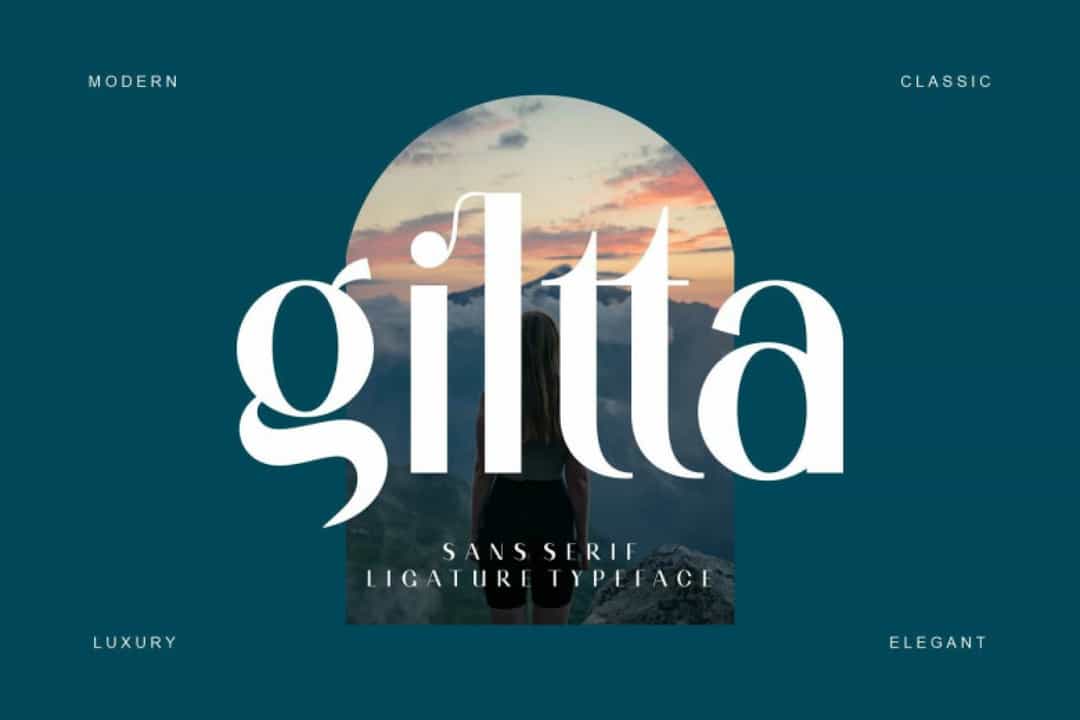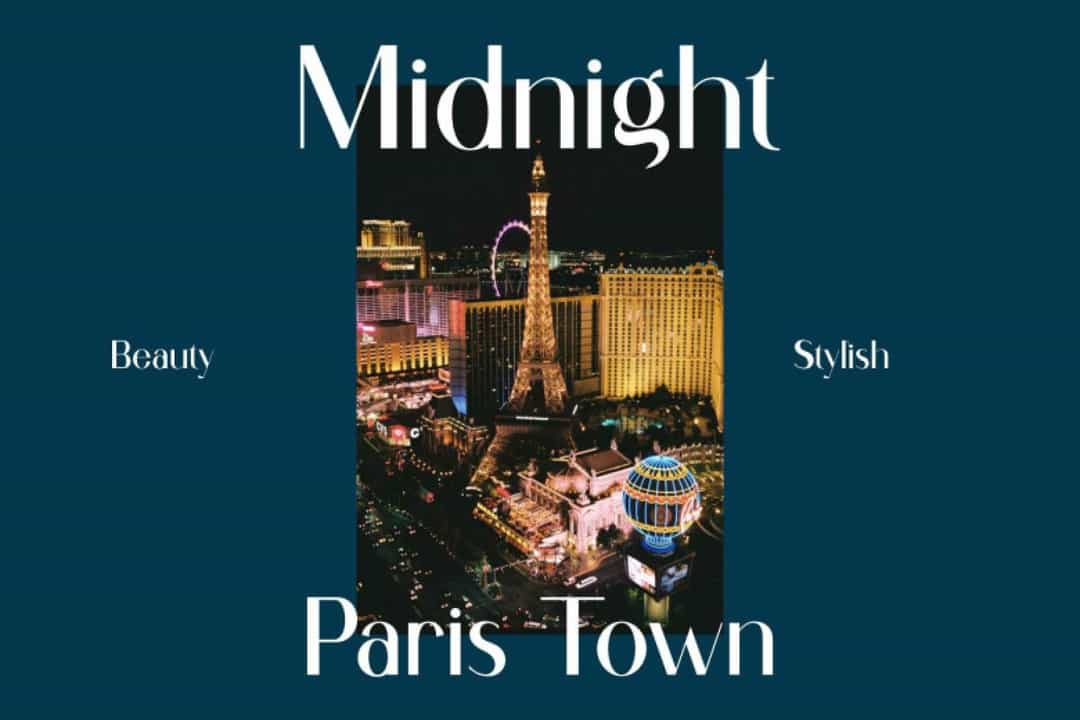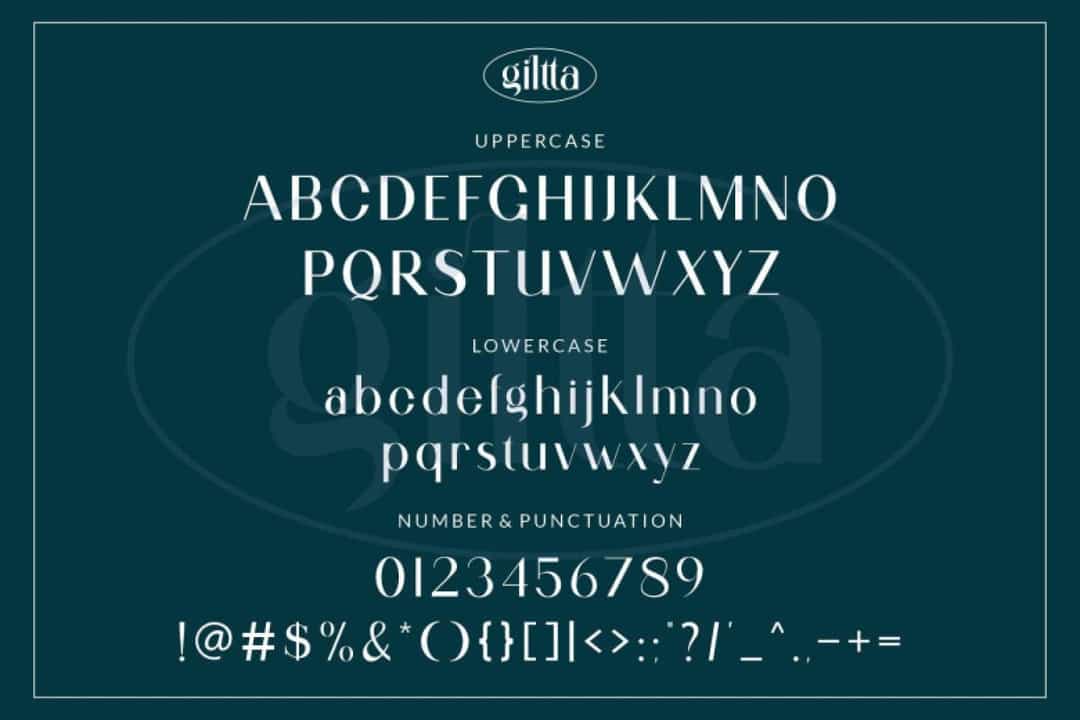
Giltta Sans Serif font has an elegant, simple, and clean aesthetic, which makes it the ideal choice for elegant-themed projects such as logos, titles magazines and other lifestyle elements.